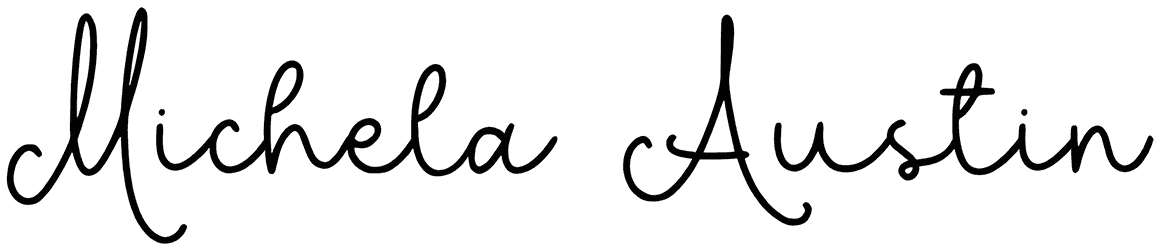
Michela Austin Font
Ever been so charmed by the looks of a handwritten font that you just had to know what it was saying? Well, if it was anything like Michela Austin, you had every right to be under its spell.
This tiny cursive font can be the whole reason your garden attracts so many visitors or your spring-themed advertising poster was such a hit. It may be a bit tricky to read but its handwriting is so cute you’ll be into it instantly.
MICHELA AUSTIN